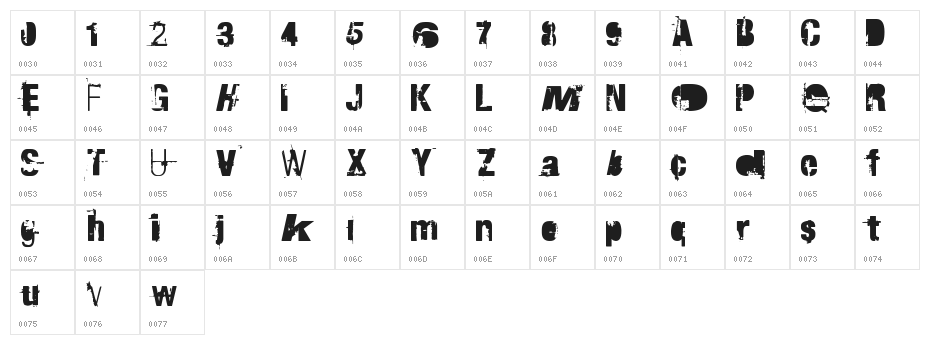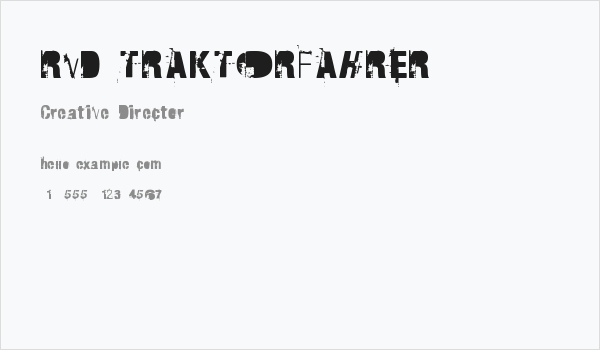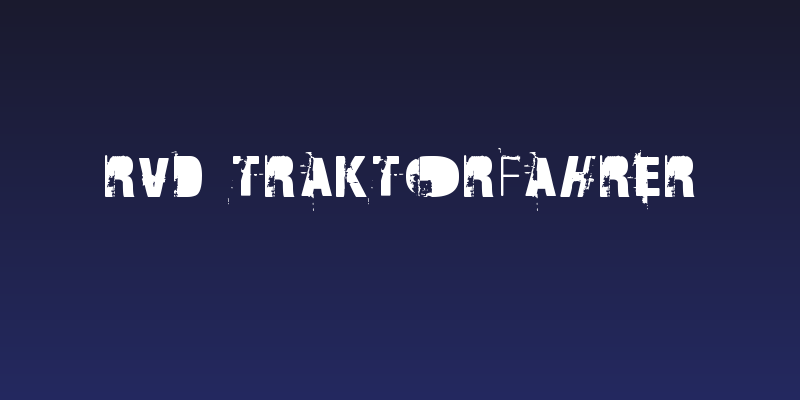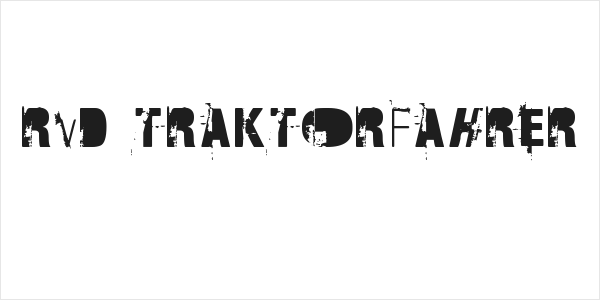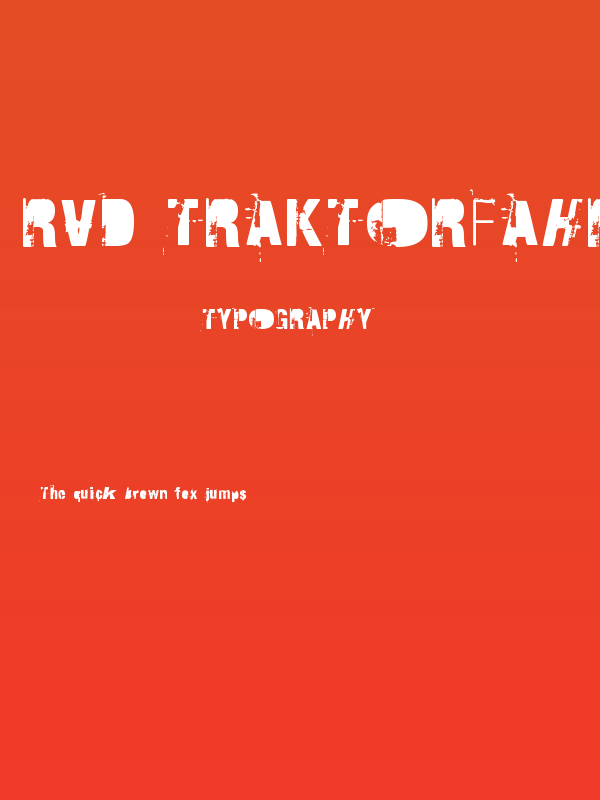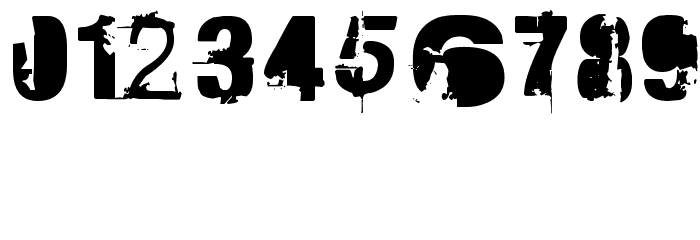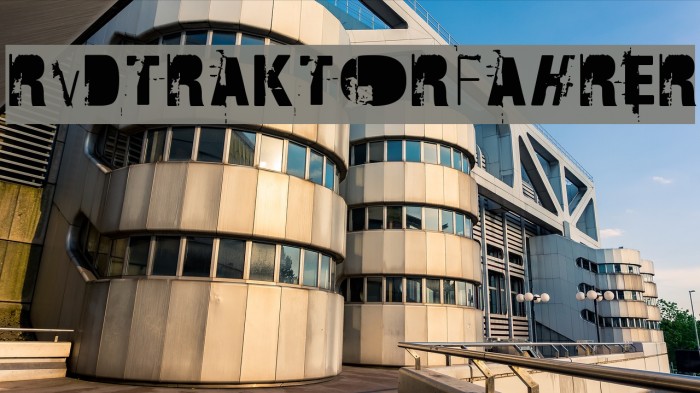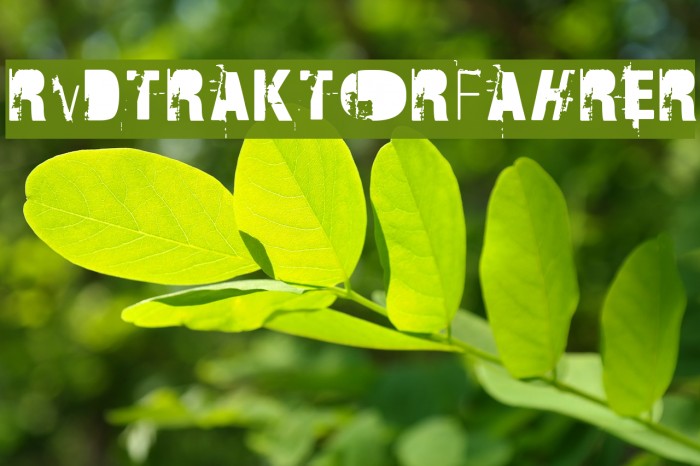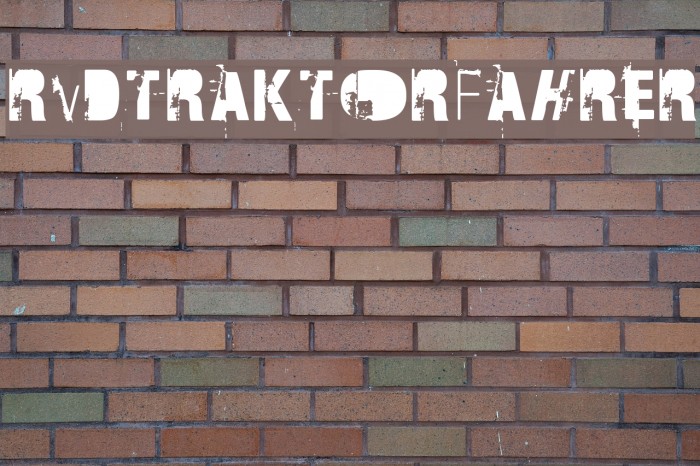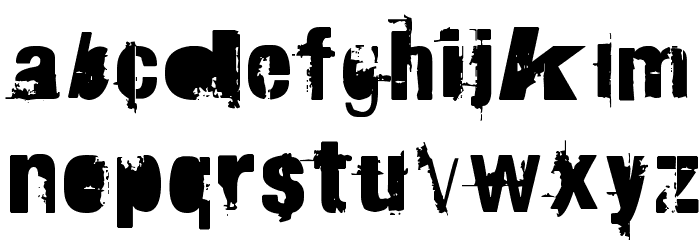
RvD_TRAKTORFAHRER Font
RvD_TRAKTORFAHRER Description
This font features a rugged, distressed style with a grunge aesthetic. The characters appear weathered and worn, giving a sense of age and texture. The uppercase and lowercase letters maintain a consistent boldness, while the numbers and special characters follow the same distressed pattern. The font's design suggests a raw, industrial feel, making it ideal for projects that require a gritty or urban look. The irregular edges and rough textures add a unique character, making it stand out in any design.
| Overall Style | Grunge, Industrial |
| Proposed Projects | Ideal for album covers, posters, streetwear branding, or any project needing an edgy, urban vibe. |